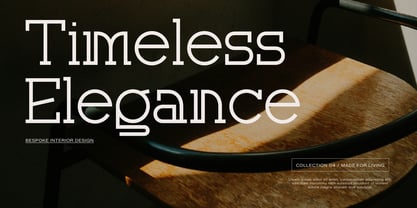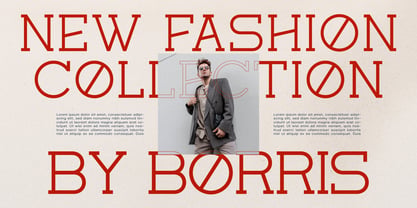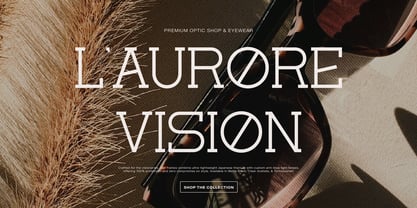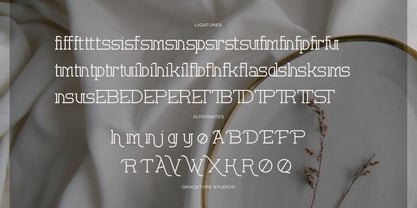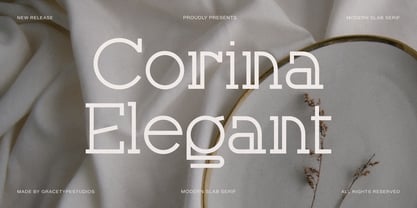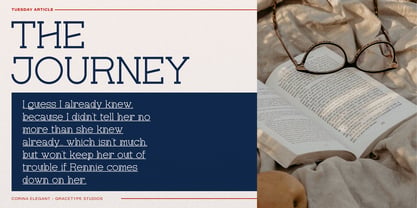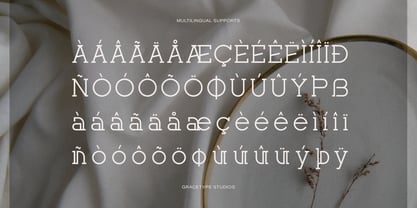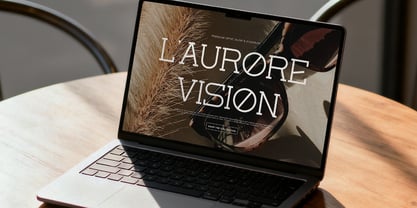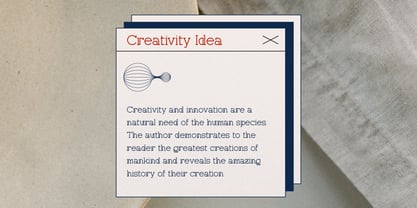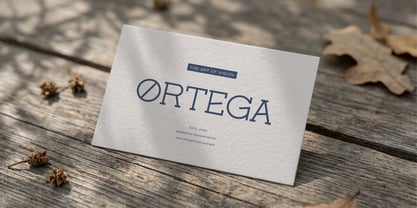
Corina Elegant
by Tini Fitriani
Corina Elegant | Modern Slab Serif, from Gracetypestudio, suitable for any projects such as: logos, branding projects, homeware designs, product packaging, mugs, quotes, posters, shopping bags, t-shirts, book covers, name card, invitation cards, greeting cards, label, photography, watermark, special events, and all your other lovely projects that need a Slab Serif taste.